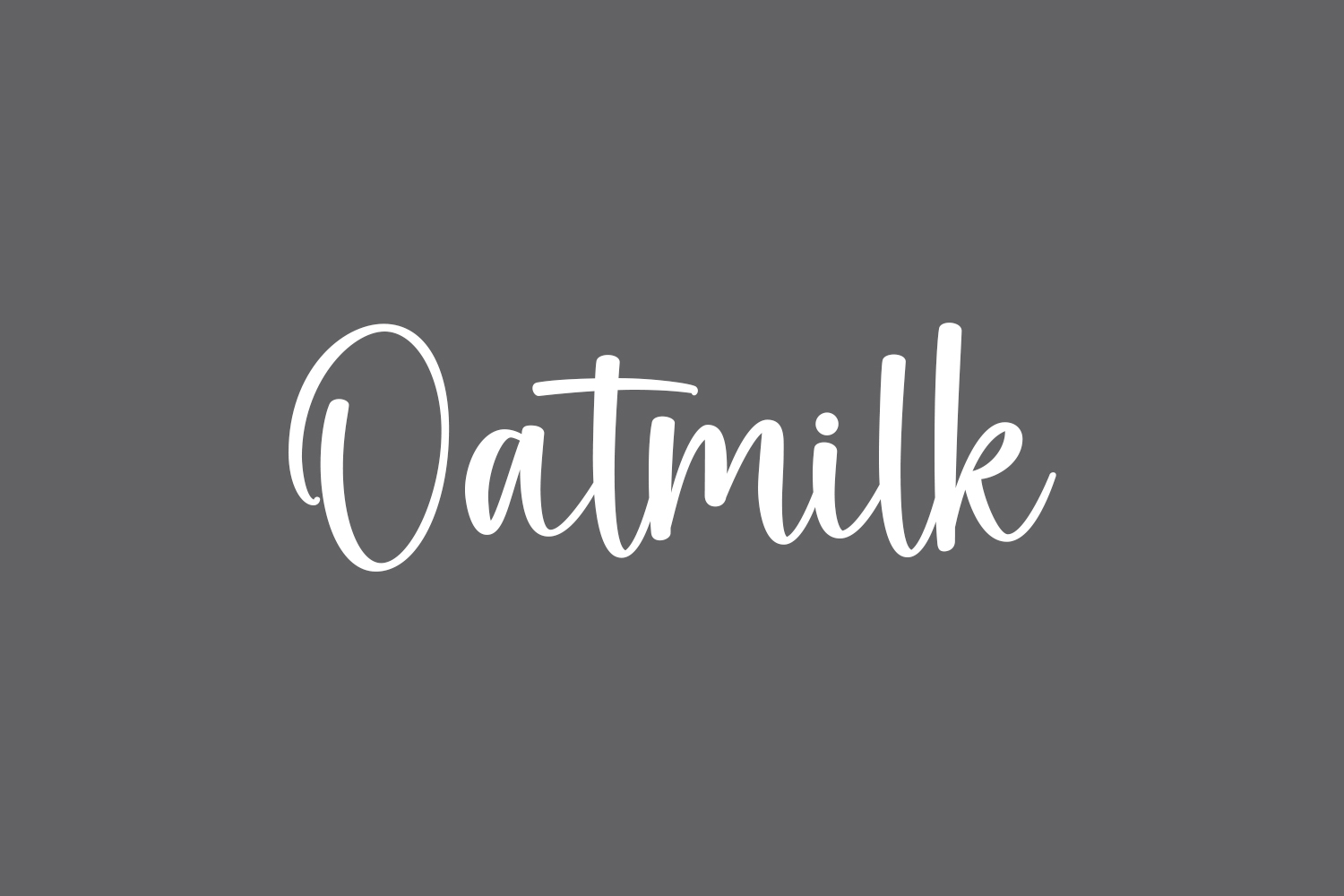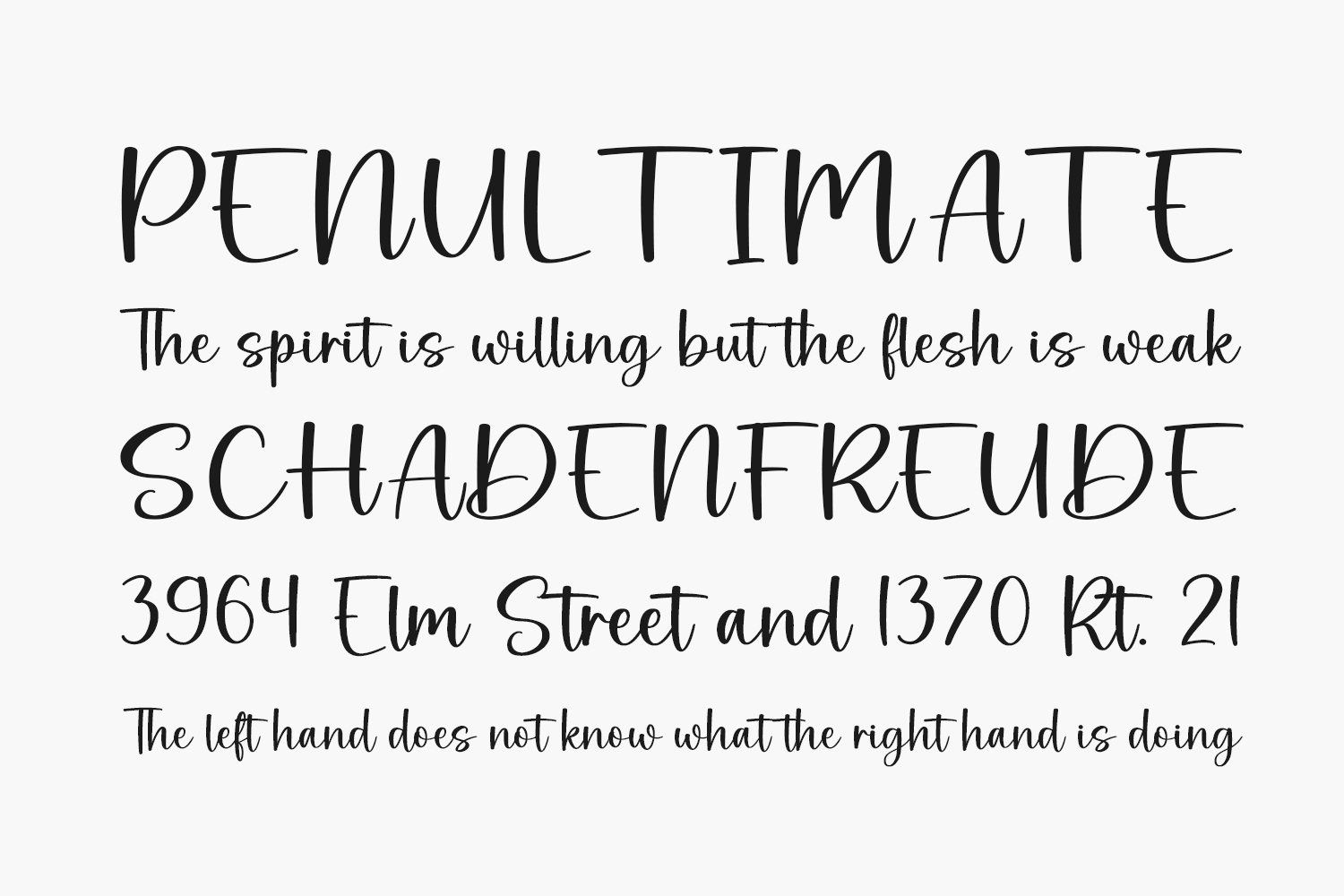
Introducing Oatmilk Free Font, a graceful and refined handwritten font that exudes delicacy and elegance. With its beautifully crafted and well-balanced characters, Oatmilk seamlessly complements a diverse range of designs, making it a versatile choice for various creative projects. Oatmilk Free Font was designed by Graphix Line Studio and is free for personal use only. Please purchase the full version for commercial use.